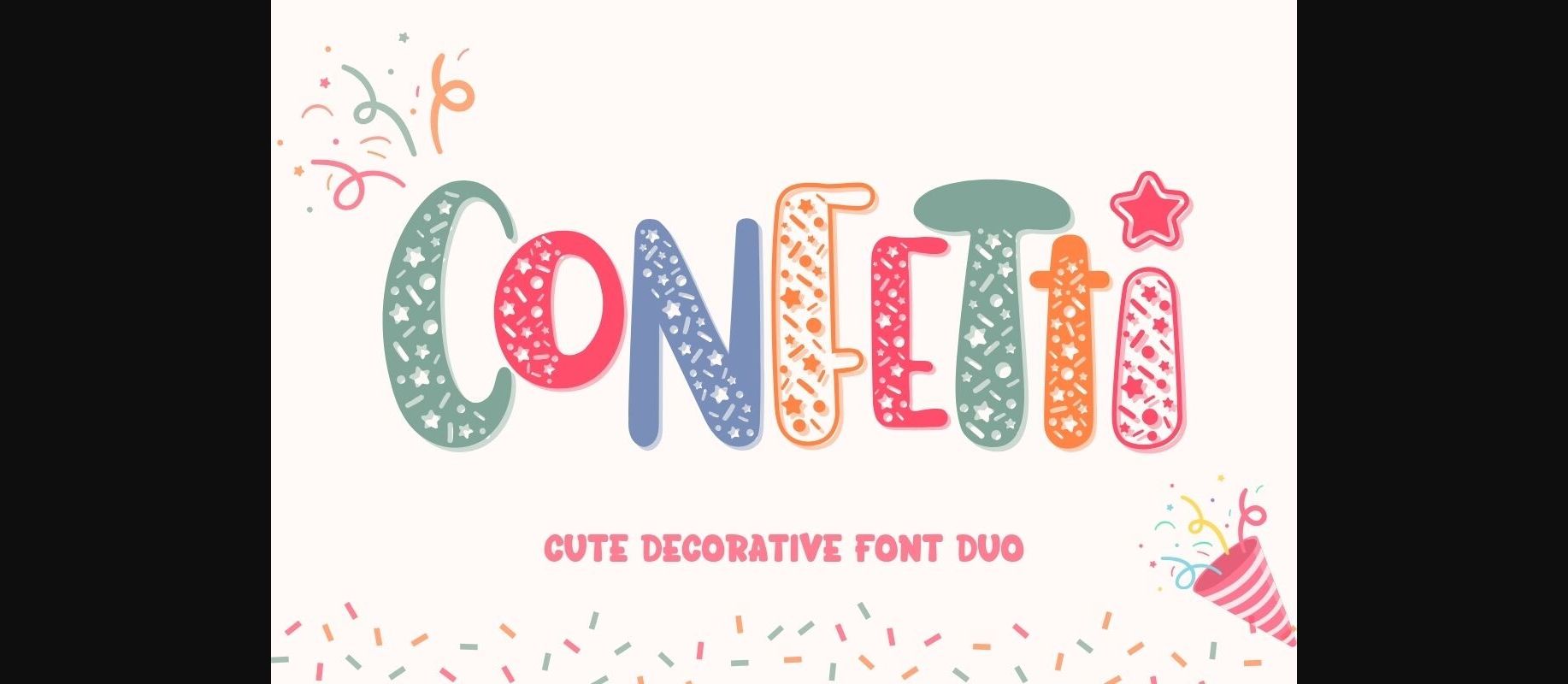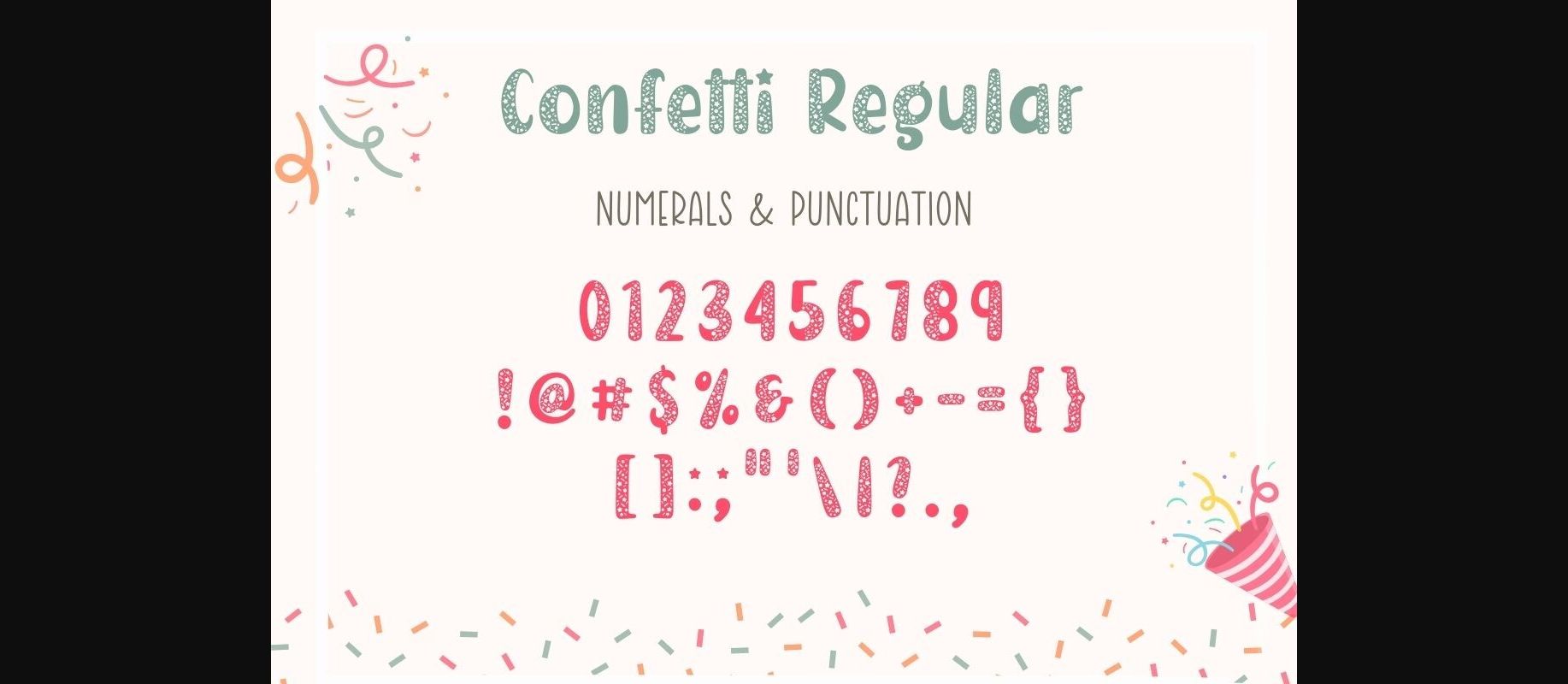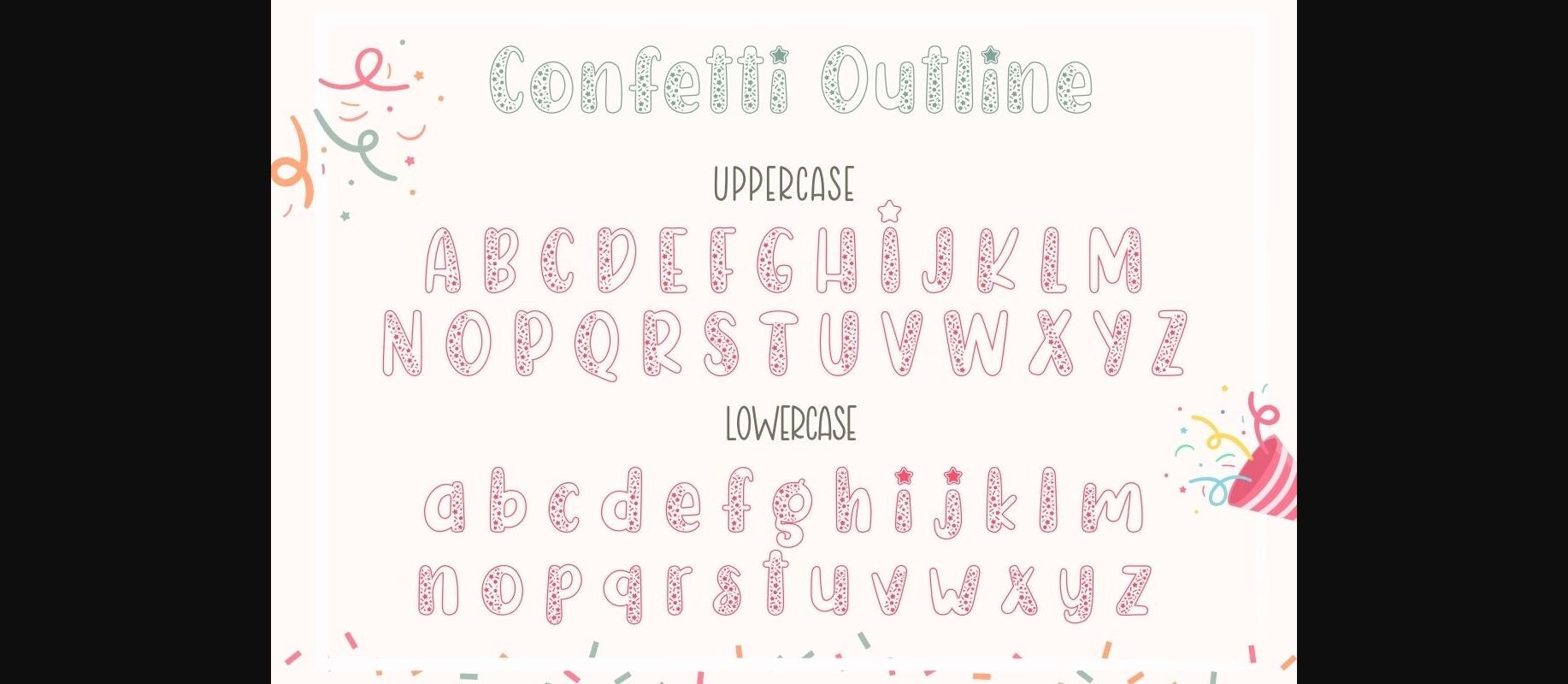
About Confetti Font
Confetti is a lovely decorative Duo Font. This font uses confetti combined with chubby handwritten letters to make it look more interesting. You can use it to create Christmas cards. wedding invitation cards, decorate bags, mugs, beautiful stationery, and post on social media and so much more!